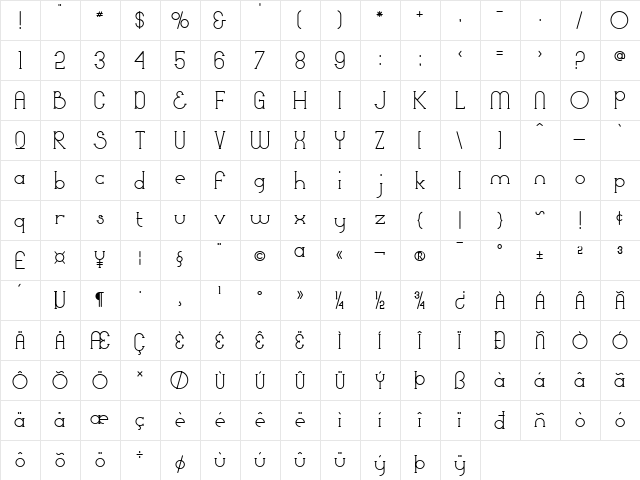
Bounaville Regular
Design Context for Bounaville Typeface
Bounaville offers clean, dependable letterforms without strong stylistic allegiance, making it a practical choice for designers who need flexibility.